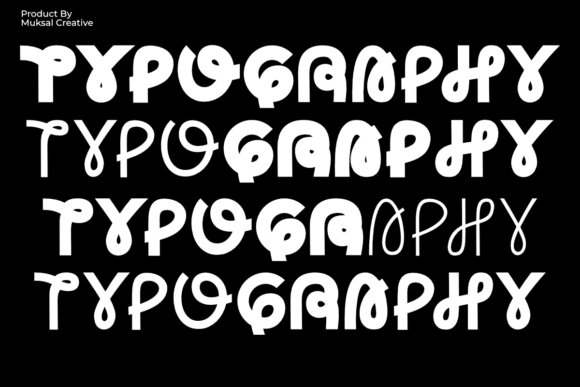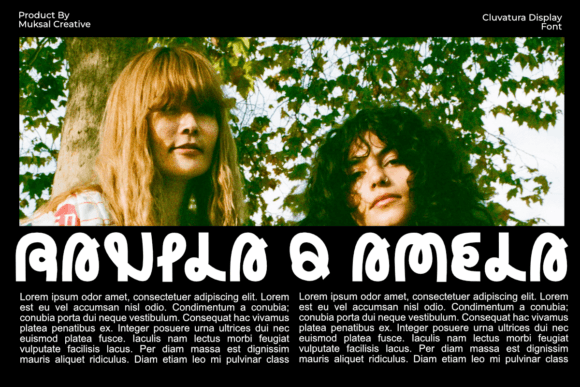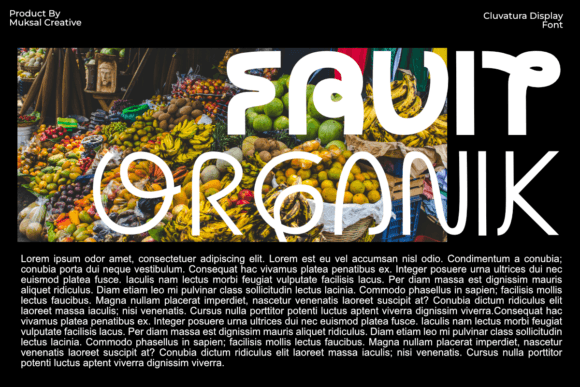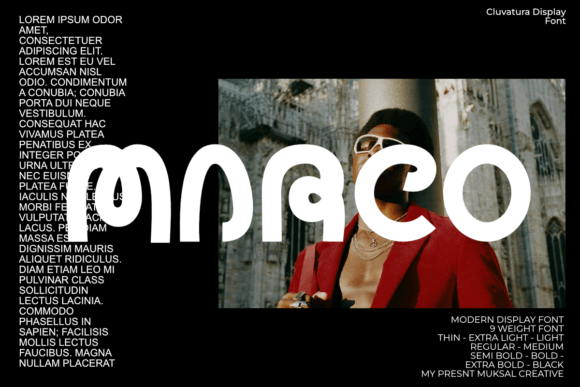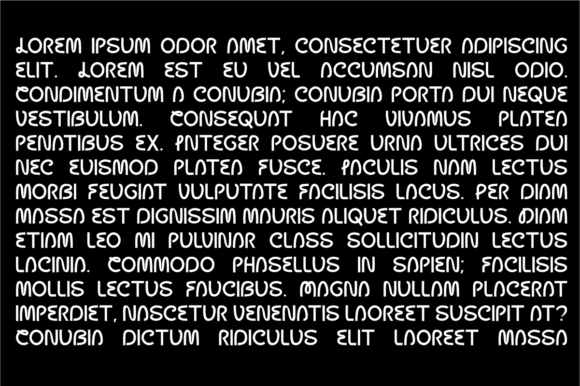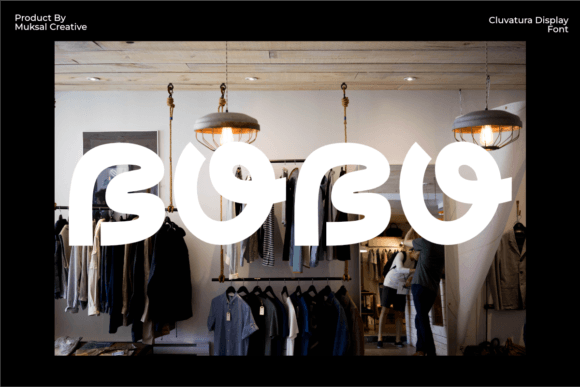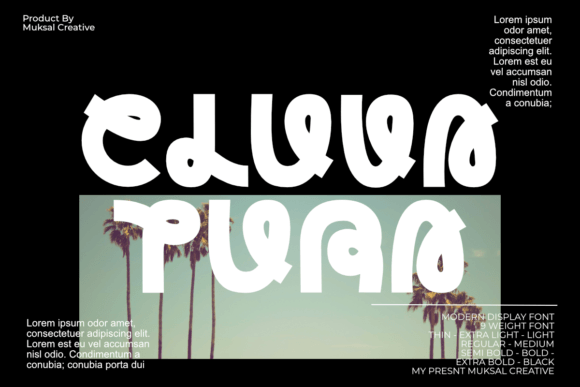
Introducing Cluvatura Font: Elevate Your Designs with a Unique and Dynamic Display Font
In the world of design, fonts play a crucial role in conveying messages, evoking emotions, and creating lasting impressions. For designers and crafters looking to add a creative touch to their projects, Cluvatura Font is an exceptional choice. This versatile display font is engineered to capture attention, offering a perfect blend of modernity and playfulness. With its nine variations, Cluvatura brings flexibility and character to the table, making it an ideal companion for a wide range of design endeavors.
The Essence of Cluvatura: A Modern and Playful Feel
Cluvatura stands out in the realm of display fonts due to its distinctive smooth curves and bold shapes. This unique combination lends Cluvatura a modern and playful feel, setting it apart from more traditional fonts. The smooth curves provide a touch of elegance and sophistication, while the bold shapes inject a sense of energy and dynamism. This balance makes Cluvatura incredibly versatile, capable of adapting to various design needs and styles.
Exceptional Flexibility with Nine Variations
One of the key features that make Cluvatura an invaluable asset to designers is its range of variations. Available in nine different weights, from Thin to Black, Cluvatura offers the flexibility to create a wide array of designs. Whether you’re aiming for a subtle, elegant look or a bold, impactful statement, Cluvatura has got you covered. This range allows designers to experiment with different tones and moods within a single font family, ensuring consistency and coherence in their projects.
Ideal for a Variety of Design Projects
Cluvatura’s unique characteristics make it particularly well-suited for projects where making an impact is key. Here are some areas where Cluvatura truly shines:
- Posters: Grab the attention of your audience with bold and eye-catching headlines.
- Branding: Establish a strong and memorable brand identity with a font that stands out.
- Headlines: Add a touch of creativity and dynamism to articles, blogs, and news pieces.
- Creative Projects: Whether it’s a logo, a flyer, or a digital graphic, Cluvatura can add that extra creative flair.
Combining Uniqueness and Boldness
What makes Cluvatura truly special is its ability to combine uniqueness with boldness. In the world of design, standing out is crucial, and Cluvatura facilitates this with its distinctive character set. Each letter is designed to contribute to a cohesive and impactful visual statement, ensuring that your designs are not only noticed but also remembered.
Tips for Using Cluvatura Effectively
To make the most of Cluvatura, consider the following tips:
- Experiment with Weights: Don’t be afraid to mix and match different weights to create visual hierarchy and interest.
- Pair with Simplicity: Cluvatura’s boldness can be balanced with simpler fonts for body text, creating a harmonious design.
- Play with Colors: Take advantage of Cluvatura’s dynamic feel by experimenting with vibrant colors and gradients.
Cluvatura Font is more than just a display font; it’s a tool for designers and crafters to express their creativity and bring their visions to life. With its unique blend of smooth curves and bold shapes, along with its exceptional flexibility, Cluvatura is poised to become a go-to font for those looking to make a statement. Whether you’re working on a poster, a brand identity, or any creative project, Cluvatura offers the perfect combination of modernity, playfulness, and character.
Embrace Cluvatura in your next design project and experience the difference it can make. Elevate your designs, capture attention, and leave a lasting impression with the dynamic and unique Cluvatura Font.